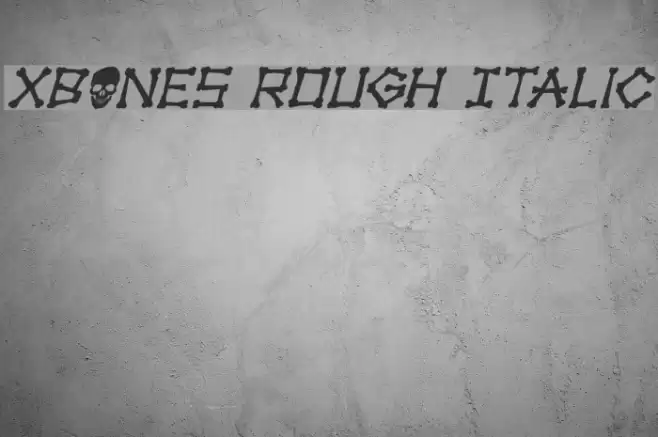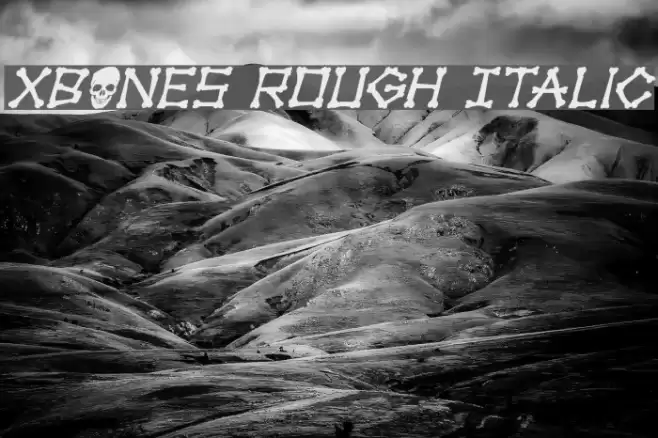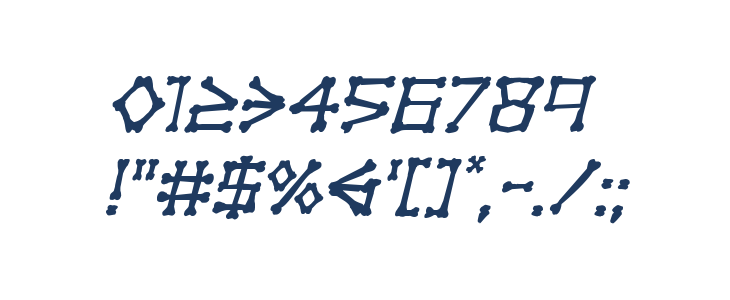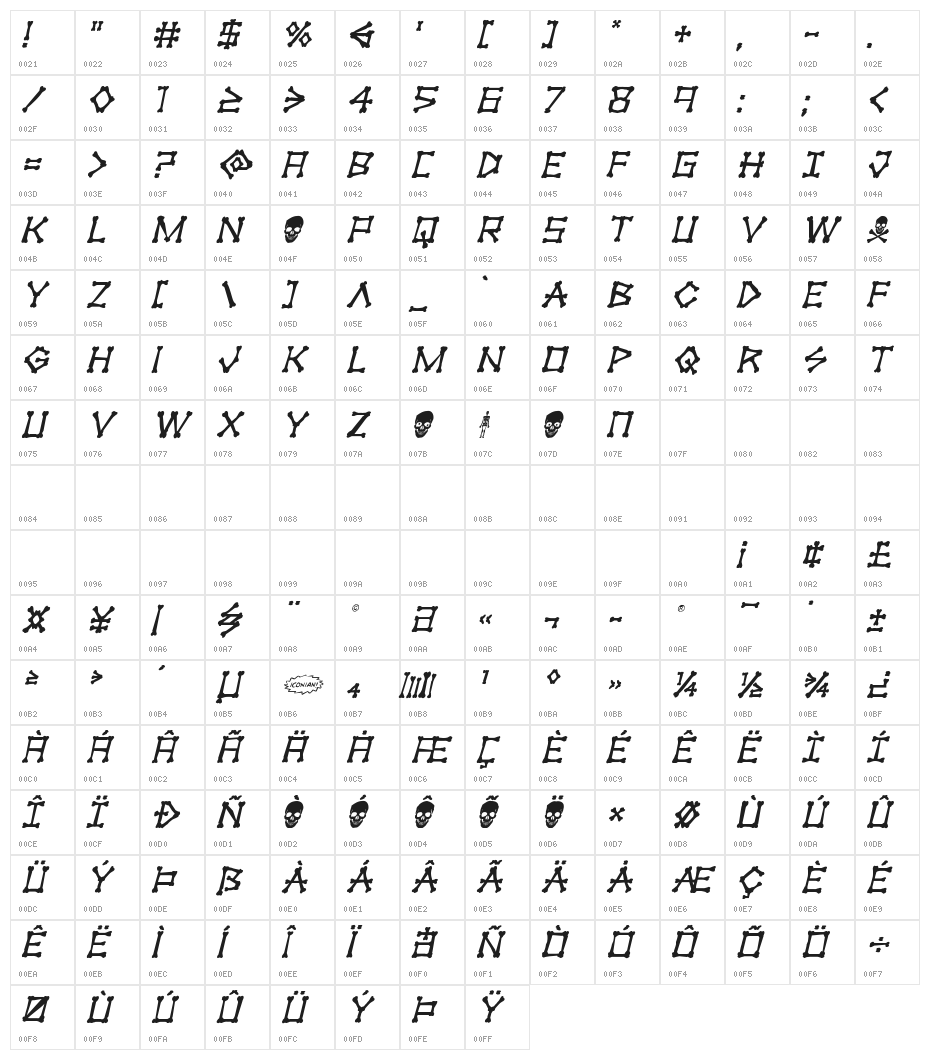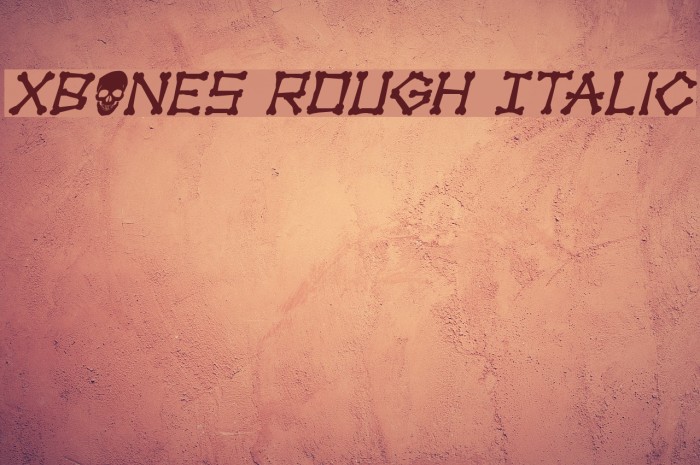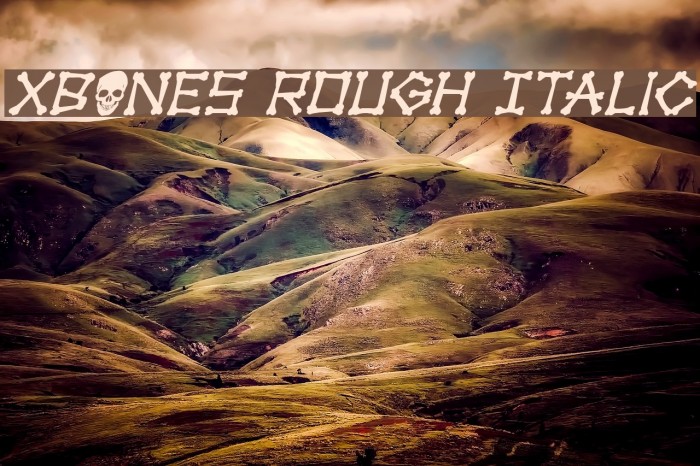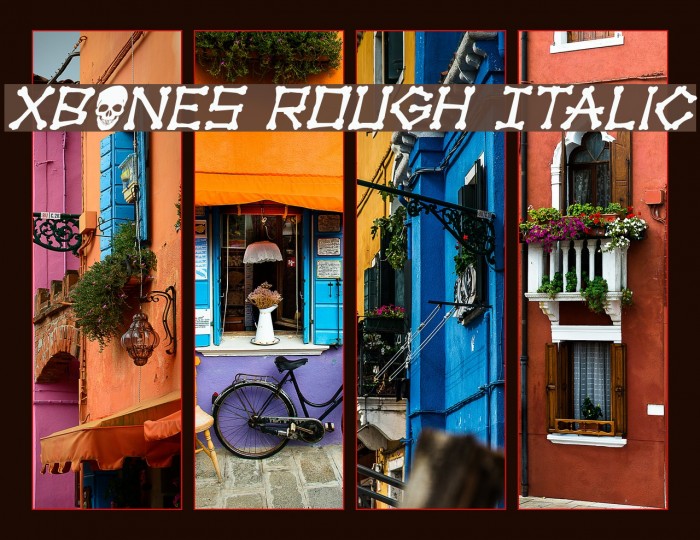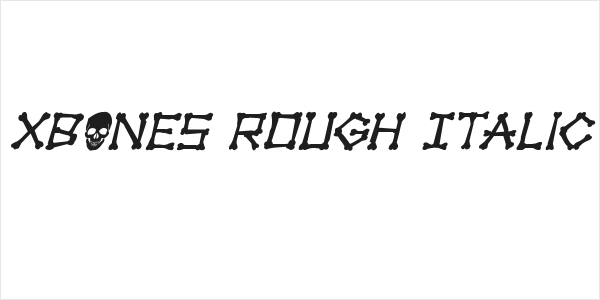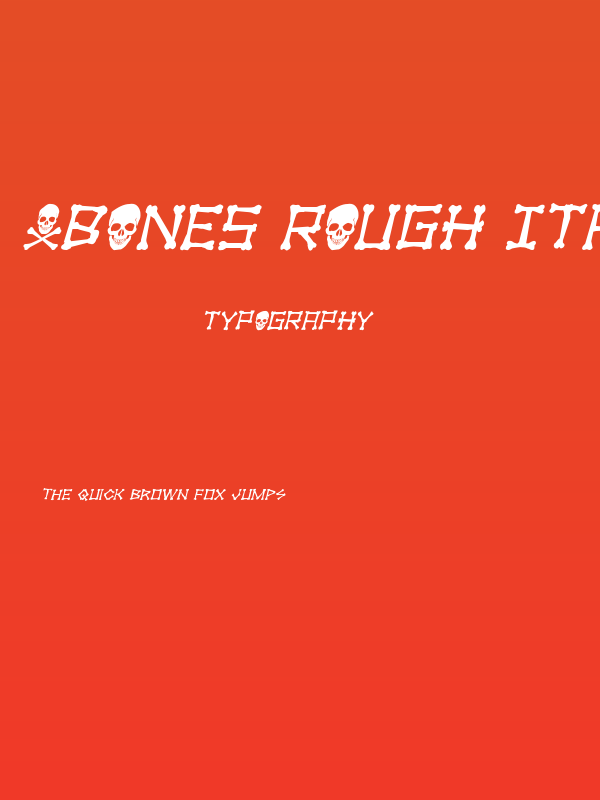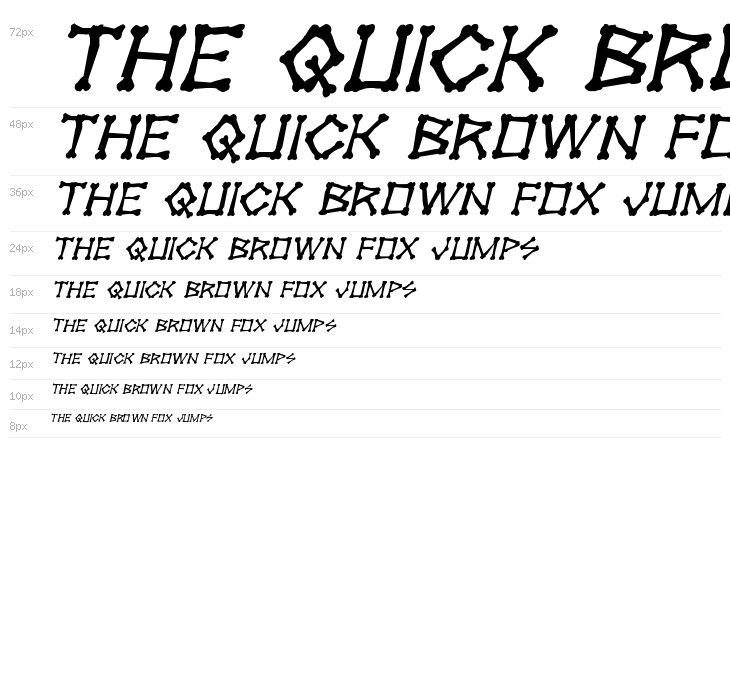
xBONES Rough Italic Font
xBONES Rough Italic Description
This font features a unique and edgy design, reminiscent of bones or skeletal structures. Each character is crafted with a rough, hand-drawn style that adds a sense of ruggedness and individuality. The uppercase and lowercase letters maintain a consistent theme, with jagged edges and irregular shapes that evoke a sense of mystery and intrigue. The numbers and special characters follow the same aesthetic, making the font cohesive and versatile. Its distinctive appearance makes it ideal for projects that require a bold and unconventional look.
A rough, bone-like font with a hand-drawn, edgy style from Uncategorized fonts.
- Proposed Projects: Perfect for Halloween-themed designs, horror movie posters, edgy apparel branding, or any project needing a spooky or rebellious vibe.